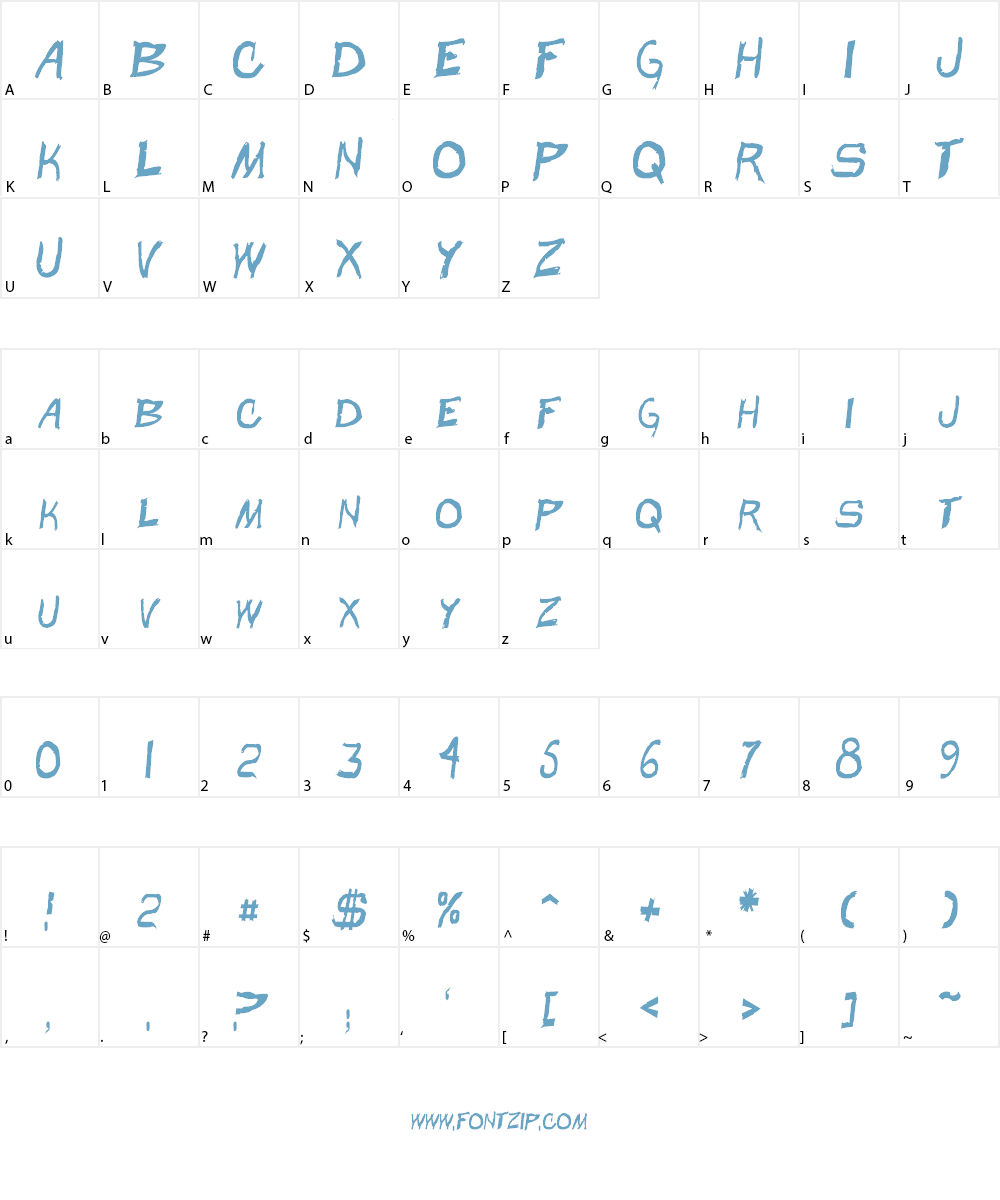
One of my most used and most famous fonts, "Beast Wars" is based on the logo of the show of the same name. Also includes Maximal, and Predacon insignia. Includes narrow version (which also includes G2 Autobot and Decepticon insignia).